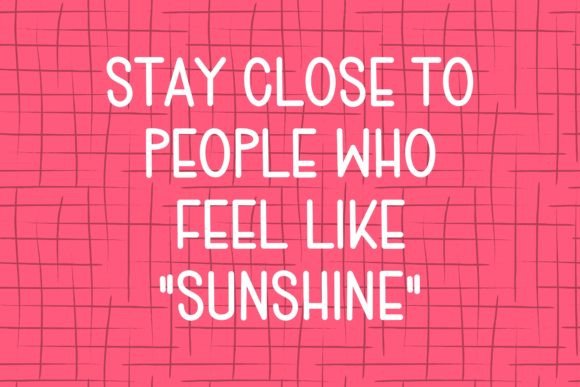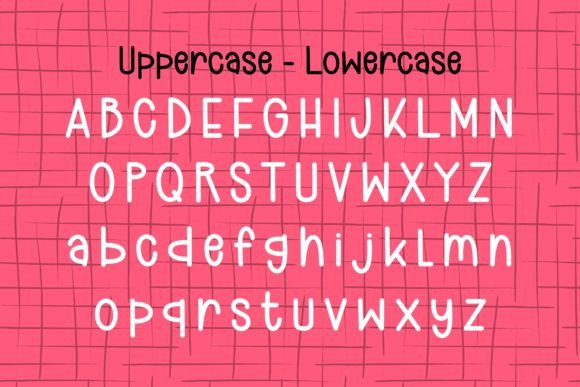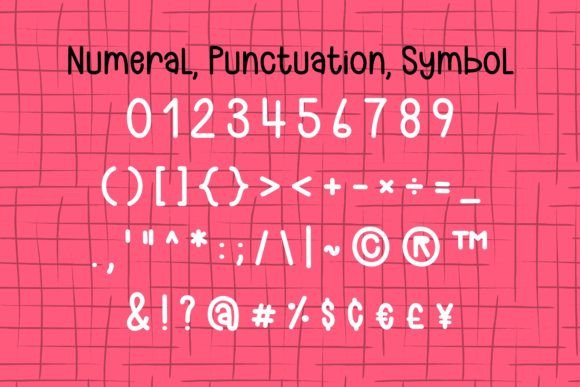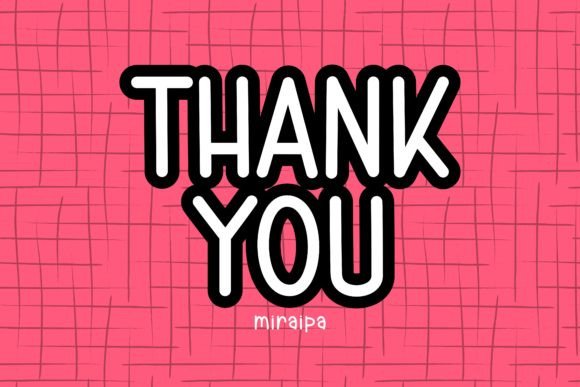
Babydoll Font: A Magical Sans-Serif Font for Your Designs
Babydoll is an incredibly cool and unique sans-serif font that has been making waves in the design community. With its modern yet whimsical style, it’s the perfect addition to any design project that needs a touch of magic. In this article, we’ll dive into the world of Babydoll Font and explore its features, uses, and benefits for designers and crafters.
The Birth of Babydoll Font
Babydoll Font is a relatively new font that has quickly gained popularity among designers and crafters. Its creator aimed to design a font that would bring a sense of playfulness and wonder to designs, and we can say that they’ve succeeded. The font’s unique style is a blend of modern and whimsical elements, making it perfect for designs that require a touch of fantasy.
Key Features of Babydoll Font
So, what makes Babydoll Font so special? Here are some of its key features:
- Unique and quirky design: Babydoll Font has a one-of-a-kind design that’s both modern and whimsical.
- Sans-serif style: The font features a clean and minimalist sans-serif style that’s perfect for digital and print designs.
- Magical and playful feel: The font’s design elements evoke a sense of magic and playfulness, making it perfect for designs that require a touch of fantasy.
- Highly versatile: Babydoll Font can be used for a wide range of design projects, from branding and advertising to crafting and DIY projects.
Uses of Babydoll Font
Babydoll Font is an incredibly versatile font that can be used for a wide range of design projects. Here are some ideas to get you started:
- Branding and advertising: Use Babydoll Font to create unique and eye-catching logos, posters, and advertisements that will grab attention.
- Crafting and DIY projects: Add a touch of magic to your crafting and DIY projects, such as handmade cards, gift tags, and scrapbooking pages.
- Digital designs: Use Babydoll Font to create stunning digital designs, such as social media graphics, blog headers, and website elements.
- Packaging design: Add a touch of whimsy to your product packaging with Babydoll Font.
Benefits of Using Babydoll Font
So, why should you use Babydoll Font in your designs? Here are some benefits:
- Stand out from the crowd: Babydoll Font is a unique and eye-catching font that will help your designs stand out from the crowd.
- Add a touch of magic: The font’s whimsical design elements will add a touch of magic to your designs, making them more engaging and memorable.
- Easy to read: Despite its playful design, Babydoll Font is highly legible and easy to read, making it perfect for body text and headlines.
- Highly versatile: The font can be used for a wide range of design projects, making it a great addition to your font library.
Tips for Using Babydoll Font
Here are some tips for using Babydoll Font in your designs:
- Experiment with font sizes: Babydoll Font looks great in a variety of font sizes, from large headlines to smaller body text.
- Pair with complementary fonts: Pair Babydoll Font with complementary fonts to create visually appealing and harmonious designs.
- Use for headlines and titles: The font’s unique design makes it perfect for headlines and titles, adding a touch of magic to your designs.
- Don’t be afraid to get creative: Babydoll Font is a versatile font that can be used in a wide range of design projects, so don’t be afraid to get creative and experiment with different designs.
In conclusion, Babydoll Font is an incredibly cool and unique sans-serif font that’s perfect for designers and crafters looking to add a touch of magic to their designs. With its modern yet whimsical style, highly versatile design, and ease of use, Babydoll Font is a great addition to any font library. Whether you’re working on a branding project, crafting and DIY project, or digital design, Babydoll Font is sure to immerse your designs into a magical world.